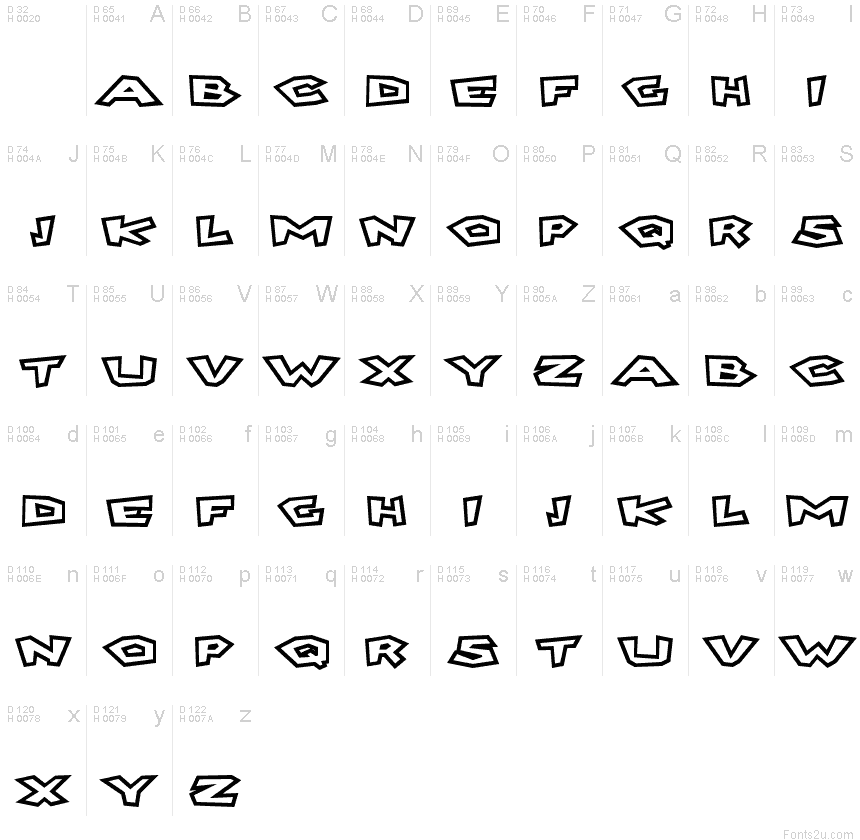
King Kikapu
King Kikapu font by Levi is a free comic display typeface with loud, jumpy letterforms that feel like they’ve just bounced onto the page. The chunky outlines, sharp angles, and slightly off-kilter shapes give it a graffiti-meets-cartoon energy, like quick marker strokes on a wall or sketchbook. It’s bold, playful, and instantly grabs attention without feeling too polished or stiff.
Using King Kikapu, your headlines snap to life on kids’ event posters, comic covers, snack or toy packaging, game logos, YouTube thumbnails, and fun sticker designs. The generous white counters keep it readable even at smaller sizes, but it really shines big and bold. Pair this free font with a clean, neutral sans serif for body text to let its wild, outlined forms take center stage.